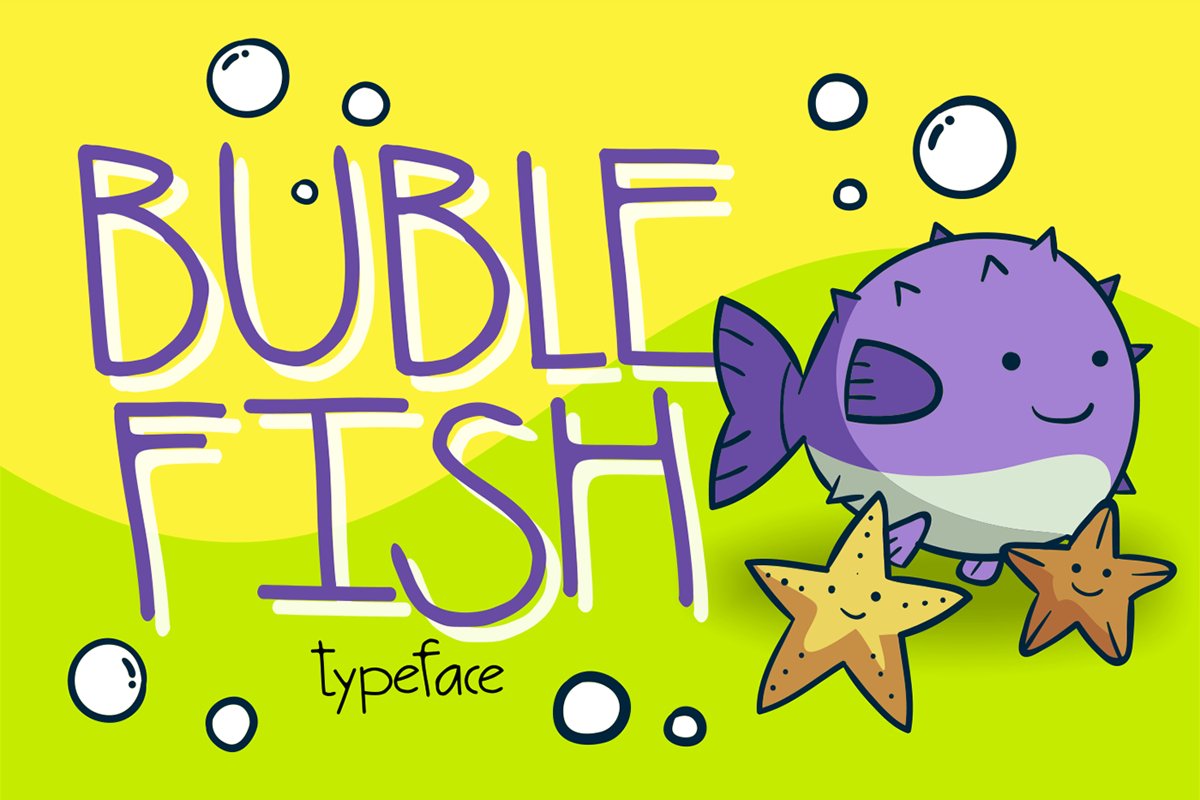
Bubble Fish
Buble Fish
Bubble Fish embodies fun, quirkiness and authenticity. This display font is the perfect fit for all of your logos, branding, social media, and crafty DIY projects.